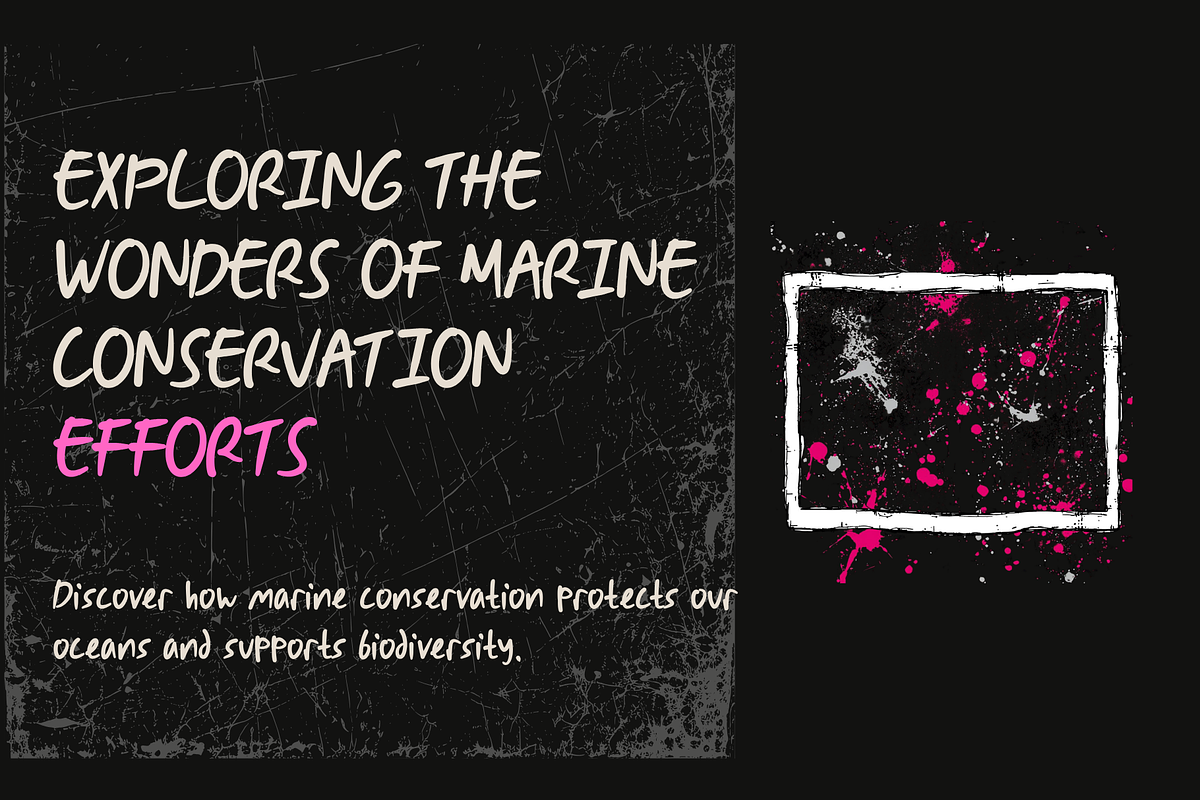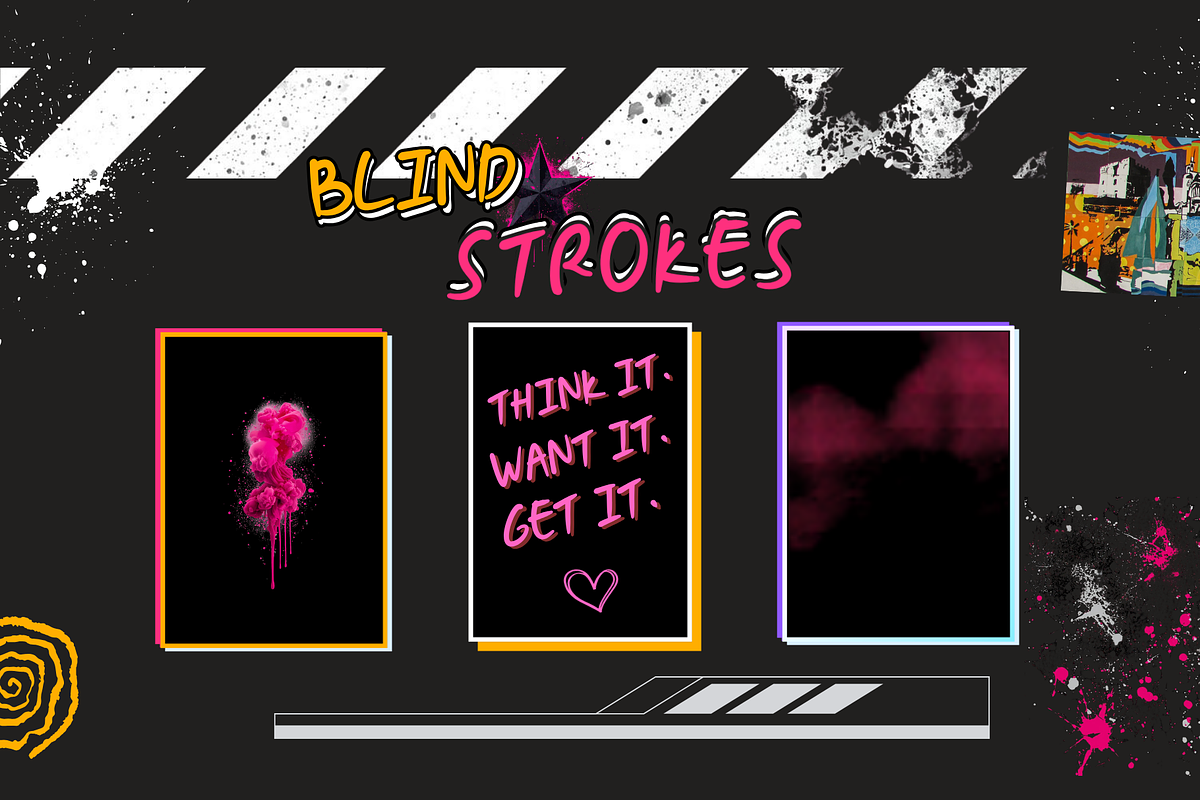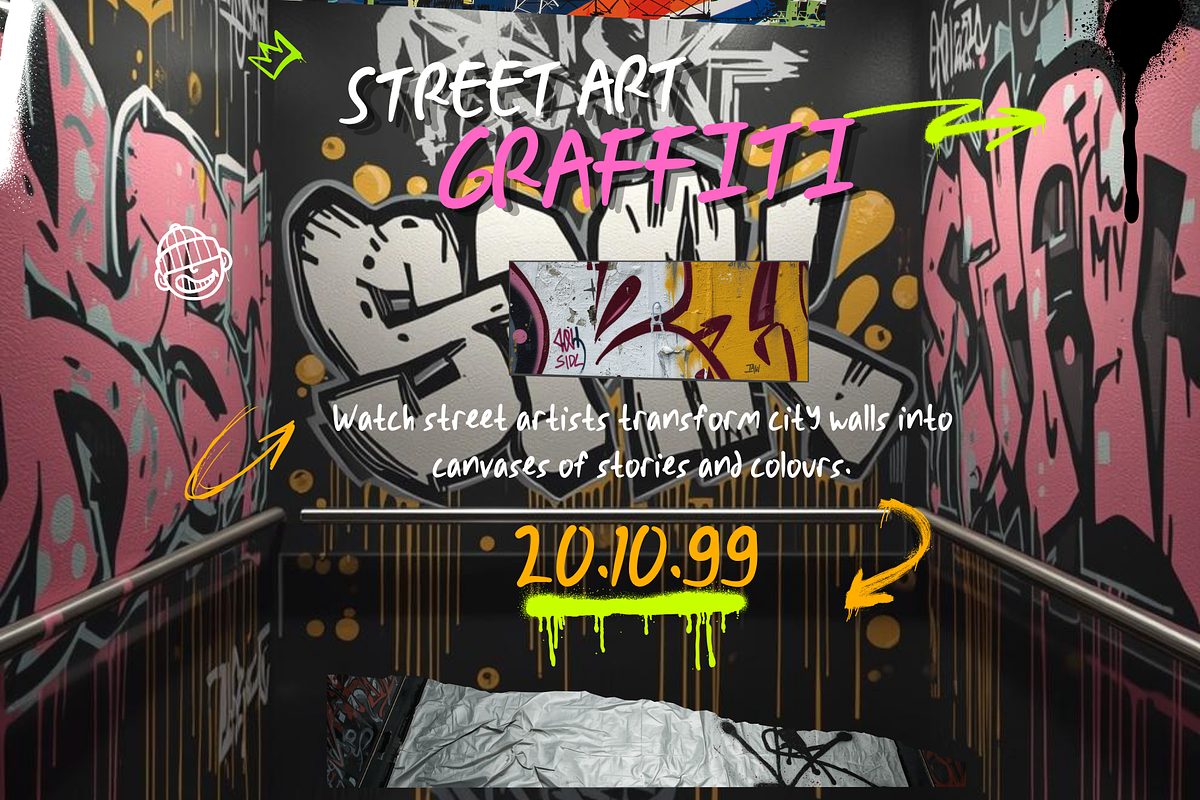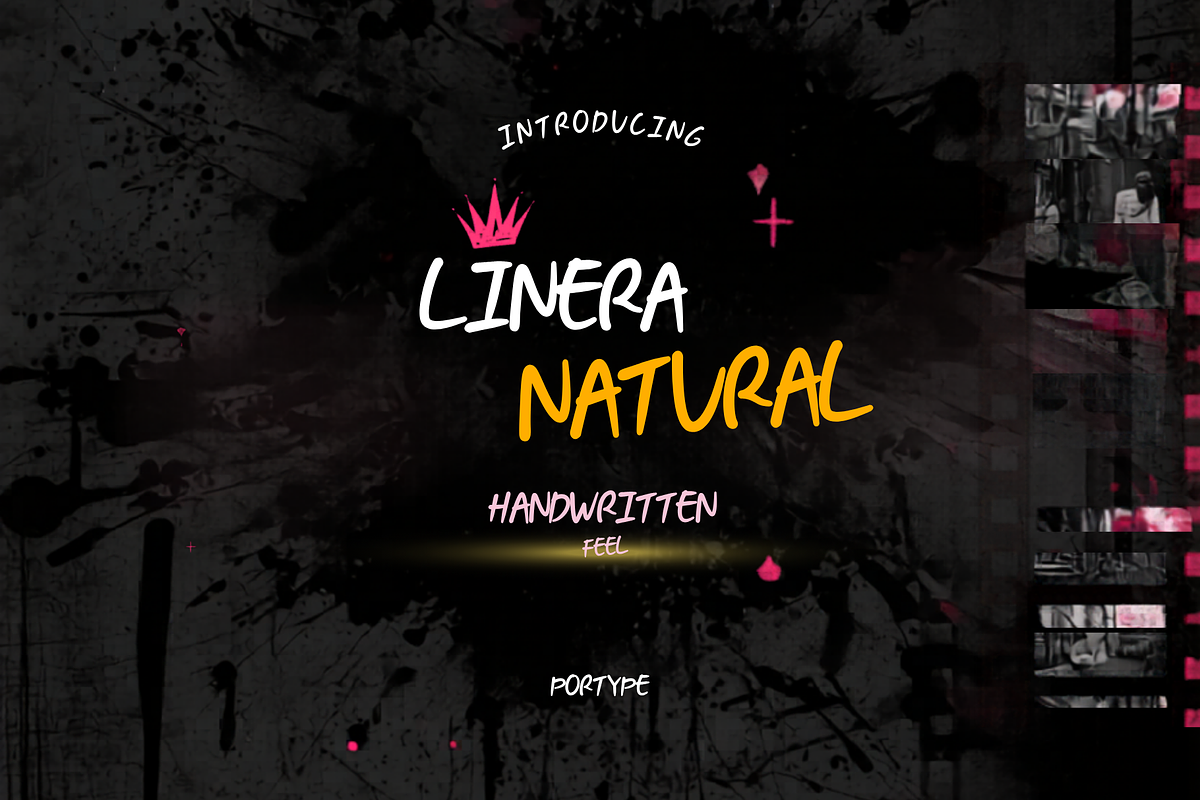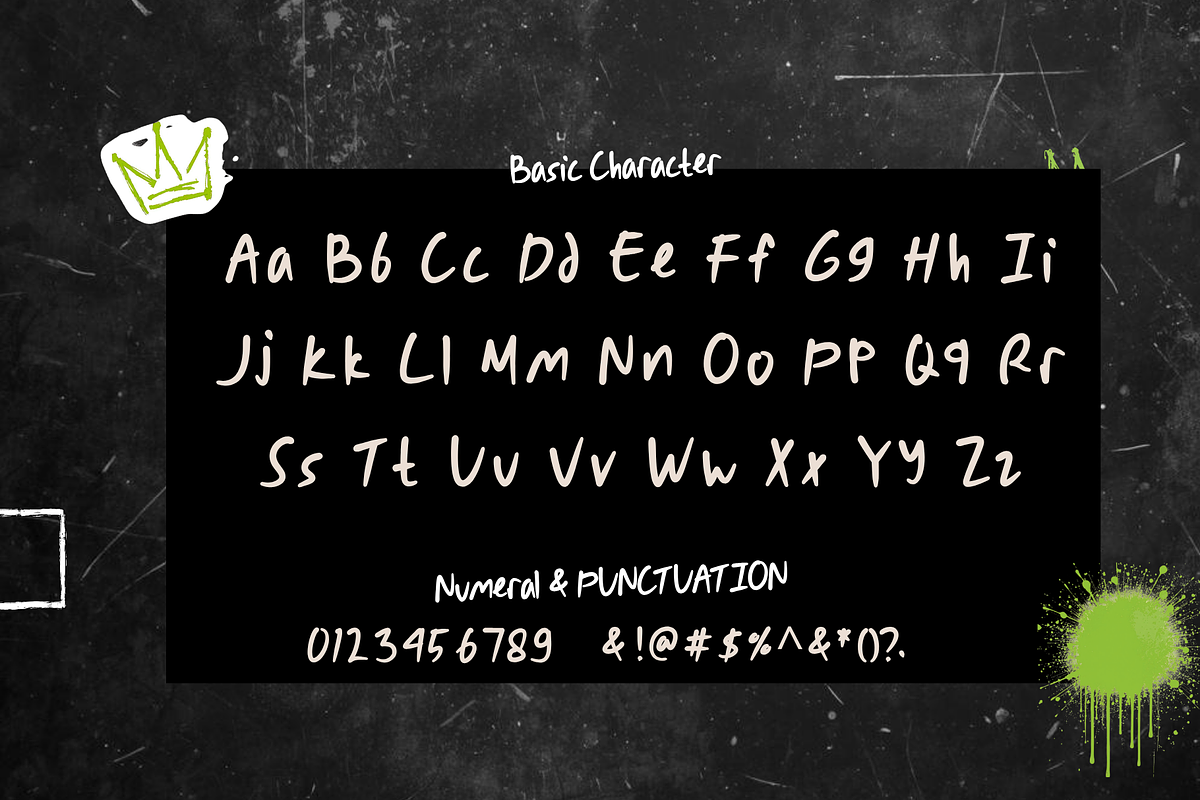
Linera - Natural Handwritten
LINERA NATURAL is a modern handwritten typeface designed to capture the raw, authentic feel of real human writing. With its slightly imperfect strokes and natural flow, this font brings warmth, personality, and a genuine handcrafted touch to any design. Unlike overly polished script fonts, Linera Natural embraces subtle inconsistencies, making every word feel organic and alive.
The font combines smooth readability with a relaxed, casual style, allowing it to work beautifully across both creative and professional projects. Its balanced structure ensures clarity, while the handwritten character adds emotional depth and visual interest.
Perfect for branding, posters, social media content, educational materials, logos, packaging, and street-style designs, Linera Natural helps you create designs that feel approachable and expressive. Whether you're aiming for a playful, urban, or personal aesthetic, this font delivers a natural handwritten vibe that stands out effortlessly.